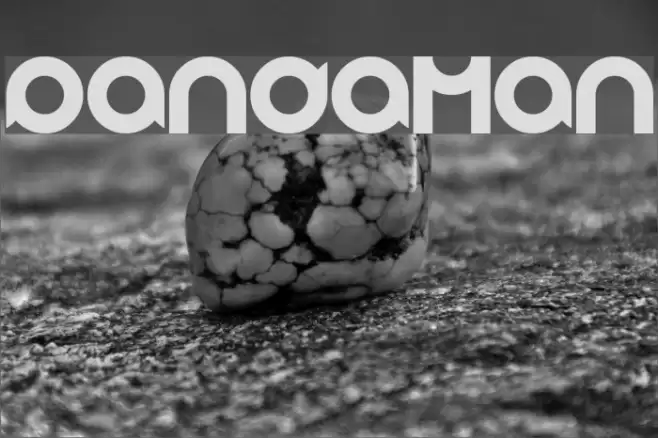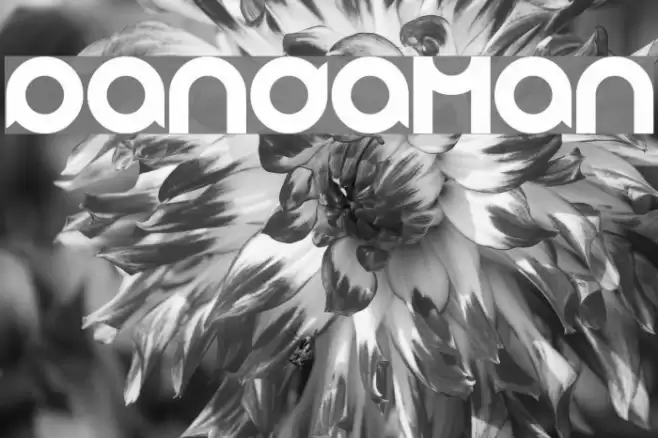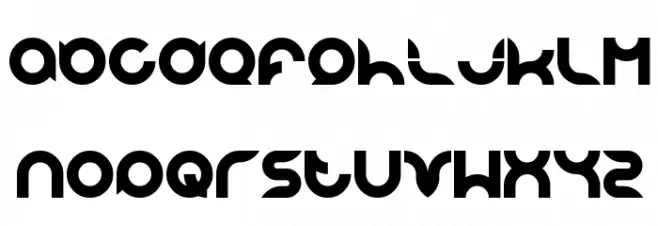
pandaman Font
pandaman Description
This font features a bold and modern design with a unique geometric style. The characters are constructed with thick strokes and sharp angles, creating a futuristic and dynamic appearance. The uppercase and lowercase letters maintain a consistent width, contributing to a uniform look. The font's design is characterized by its distinct cut-out sections within each letter, adding an element of intrigue and complexity. The numbers and special characters follow the same stylistic approach, ensuring cohesion across all elements. This font is ideal for projects that require a contemporary and eye-catching typeface.
A bold, geometric font with a modern, futuristic style from Uncategorized fonts.
- Proposed Projects: Ideal for branding, logos, posters, and digital media that require a modern and striking typeface.